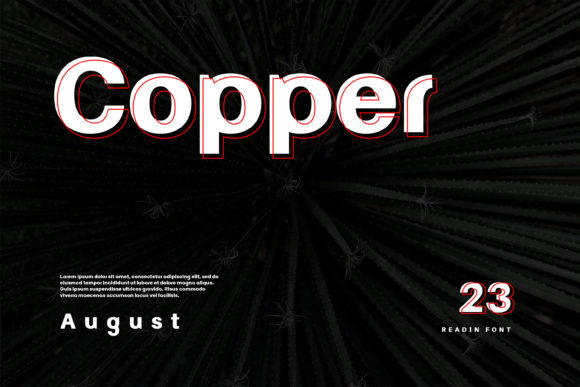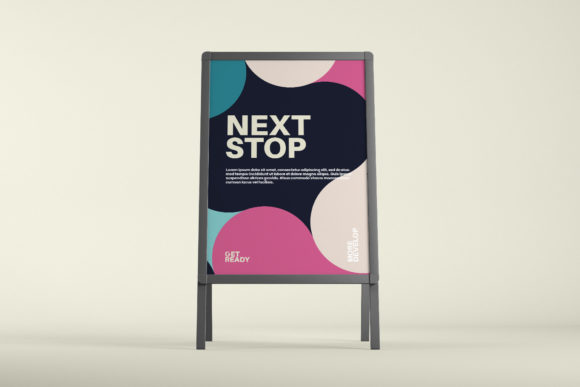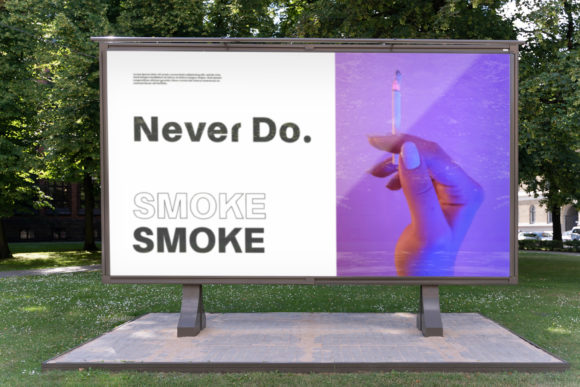
Introduction to Gilbek Font
Gilbek is a minimal and neat sans serif font.
Gilbek Font offers exceptional quality and versatility, making it a valuable addition to your design toolkit. Whether you’re creating for personal projects or commercial use, Gilbek Font delivers professional results.